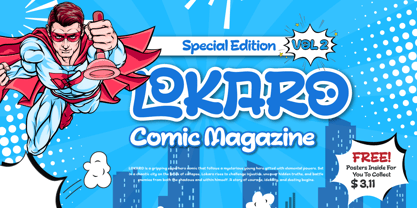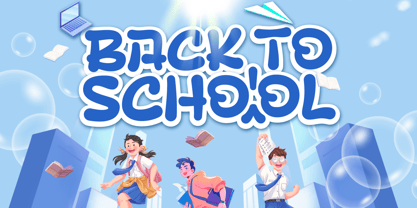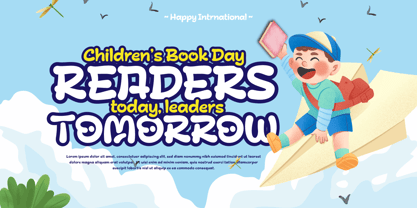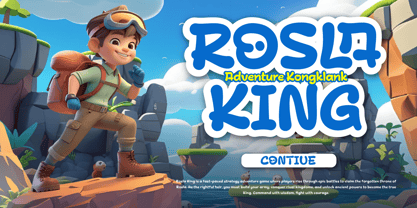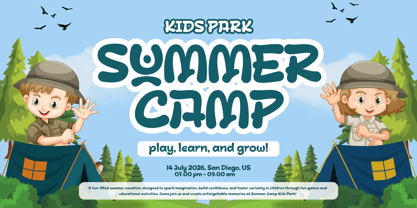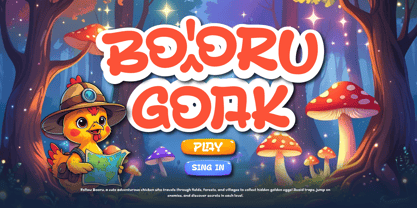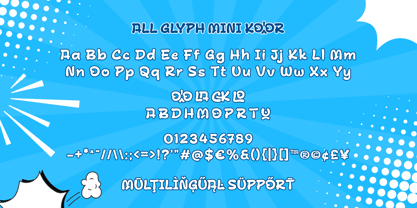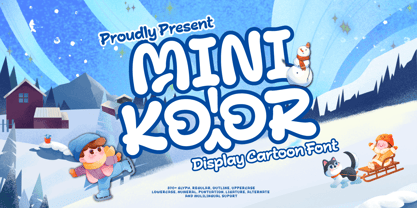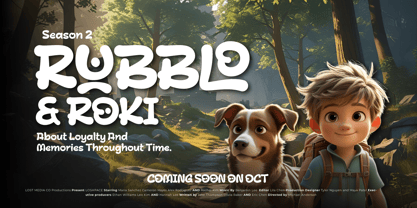
Mini Koor
The Mini Koor Font Family was designed by Rozikan and published by Twinletter. Mini Koor contains 2 styles and family package options. More about this family
Mini Koor is a fun and cheerful cartoon display font that brings life and laughter to any design. With its bold shapes, rounded edges, and playful personality, Mini Koor is perfect for children’s books, comic titles, playful branding, educational materials, birthday invitations, and animated content.
Its hand-drawn charm and easy-to-read characters make it especially suited for projects that aim to entertain and engage younger audiences. Whether you're designing for a toy store, a school project, or a colorful app interface, Mini Koor adds a burst of creativity and joy.
Let your imagination run wild—Mini Koor is here to make your design bright, fun, and full of character!
- Fonts include Multilingual: Support for 85 languages.